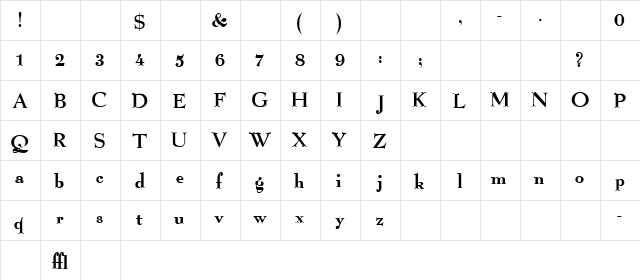
Banting Regular
Design Context for Banting Typeface
Banting offers clean, dependable letterforms without strong stylistic allegiance, making it a practical choice for designers who need flexibility.